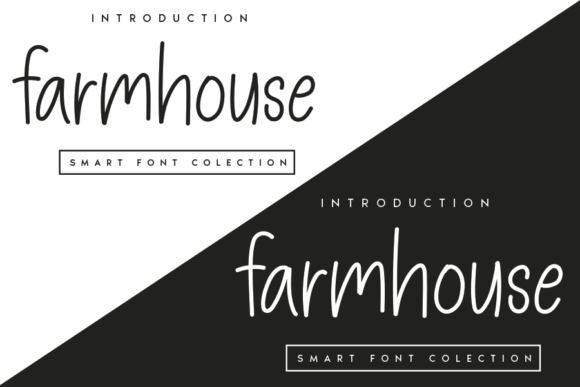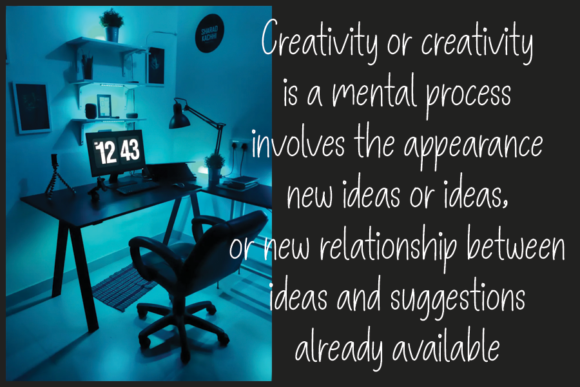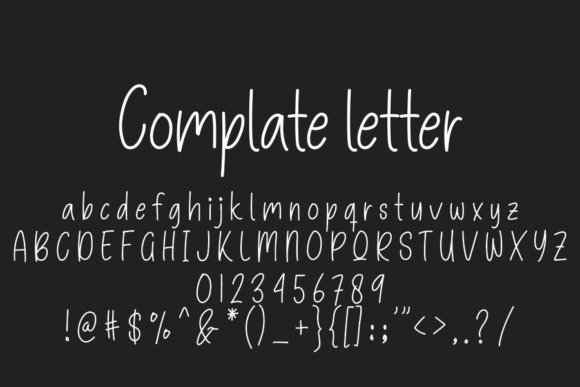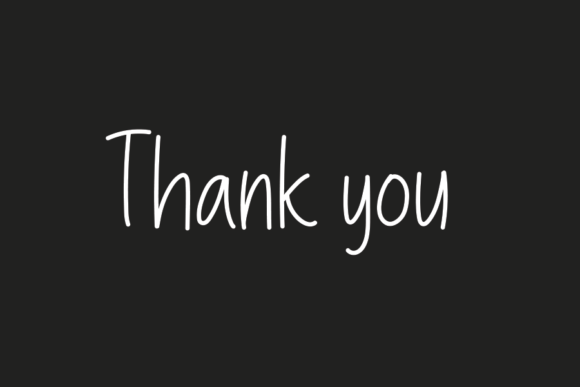
Introducing Farmhouse Font: A Sweet and Friendly Handwritten Delight
Are you a designer, crafter, or DIY enthusiast looking for a font that captures the essence of rustic charm and whimsy? Look no further than Farmhouse Font, a beautiful handwritten font that’s perfect for a wide range of creative projects. With its natural and unique style, Farmhouse Font is sure to inspire your imagination and take your designs to the next level.
The Charm of Farmhouse Font
Farmhouse Font is a sweet and friendly handwritten font that’s designed to evoke the feeling of a simpler, more rustic way of life. Its natural, effortless style makes it incredibly fitting for a large pool of designs, from DIY crafts and home decor to branding and marketing materials. Whether you’re creating a logo, a sign, or a social media graphic, Farmhouse Font is the perfect choice for adding a touch of warmth and personality to your project.
What Makes Farmhouse Font So Special?
So, what sets Farmhouse Font apart from other fonts? Here are just a few things that make it so special:
- Unique and Handwritten Style: Farmhouse Font is a truly one-of-a-kind font that’s been carefully crafted to capture the essence of handwritten script. Its unique style is both rustic and refined, making it perfect for a wide range of creative projects.
- Natural and Effortless: Unlike some fonts that can look stiff or formal, Farmhouse Font has a natural, effortless style that’s perfect for creating designs that feel warm and inviting.
- Versatile: Farmhouse Font is incredibly versatile, making it perfect for a wide range of creative projects, from DIY crafts and home decor to branding and marketing materials.
- Easy to Read: Despite its handwritten style, Farmhouse Font is incredibly easy to read, making it perfect for creating designs that need to communicate a message or tell a story.
Using Farmhouse Font in Your Designs
So, how can you use Farmhouse Font in your designs? The possibilities are endless! Here are a few ideas to get you started:
- DIY Crafts: Use Farmhouse Font to add a personal touch to your DIY crafts, such as signs, banners, and other decorative items.
- Branding and Marketing: Use Farmhouse Font to create unique and eye-catching branding and marketing materials, such as logos, business cards, and social media graphics.
- Home Decor: Use Farmhouse Font to create beautiful and rustic home decor items, such as wall art, signs, and banners.
- Stationery and Invitations: Use Farmhouse Font to create beautiful and unique stationery and invitations that are perfect for special occasions.
Tips for Getting the Most Out of Farmhouse Font
Here are a few tips for getting the most out of Farmhouse Font:
- Pair with Other Fonts: Farmhouse Font pairs beautifully with other fonts, so don’t be afraid to get creative and try out different combinations.
- Use it to Add a Personal Touch: Use Farmhouse Font to add a personal touch to your designs and make them stand out from the crowd.
In conclusion, Farmhouse Font is a sweet and friendly handwritten font that’s perfect for designers, crafters, and DIY enthusiasts. Its natural and unique style makes it incredibly fitting for a wide range of creative projects, and its versatility and ease of use make it a joy to work with. Whether you’re creating a logo, a sign, or a social media graphic, Farmhouse Font is the perfect choice for adding a touch of warmth and personality to your project. So why wait? Download Farmhouse Font today and let your imagination run wild!